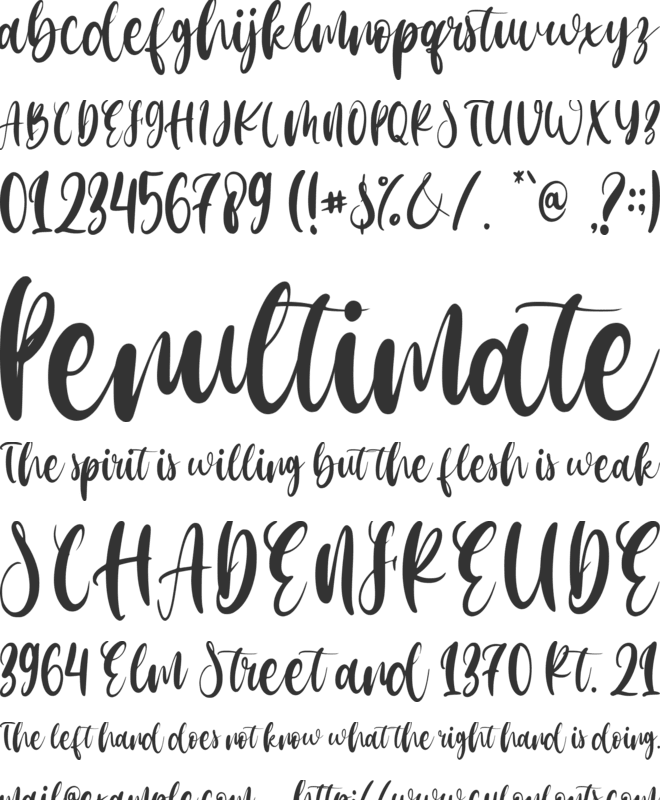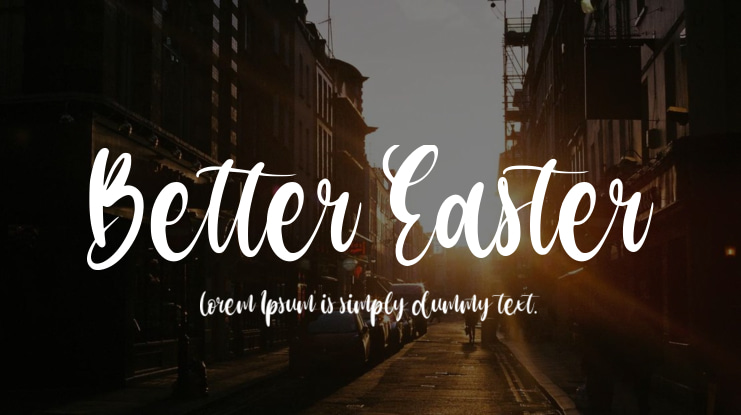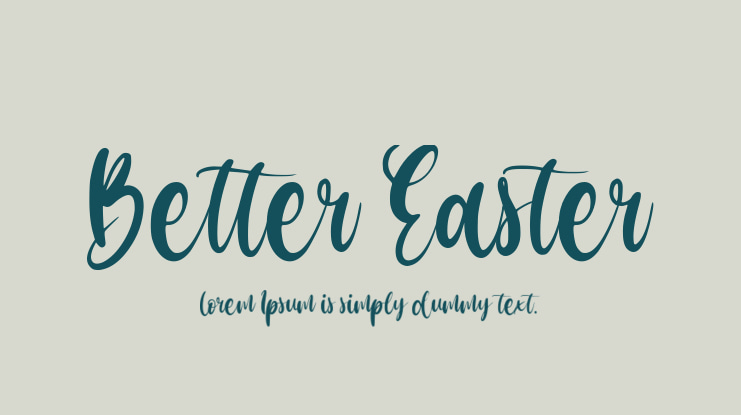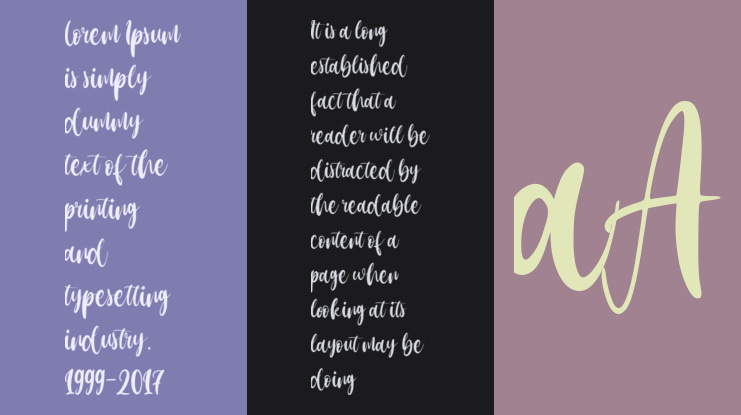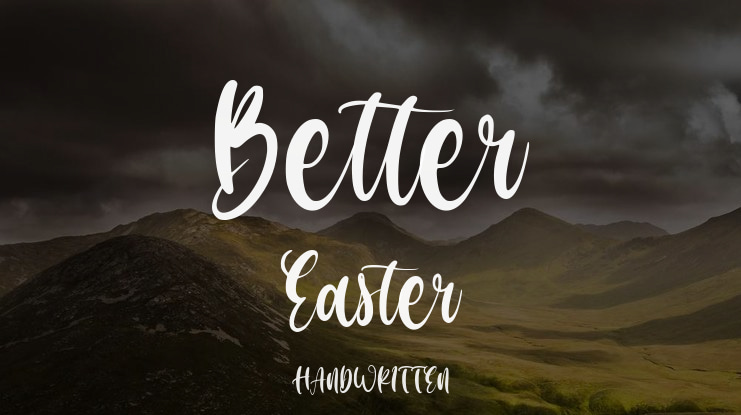
Better Easter Font
Presenting Better Easter, an enchanting handwritten font that exudes a romantic essence, perfect for your Easter-themed projects. Elevate your logo, branding, and motivational quotes with its distinctive and everlasting appeal.
This sophisticated typeface is PUA encoded, allowing convenient access to all glyphs and strokes. With Better Easter, creating your Easter designs becomes simpler and more visually appealing.